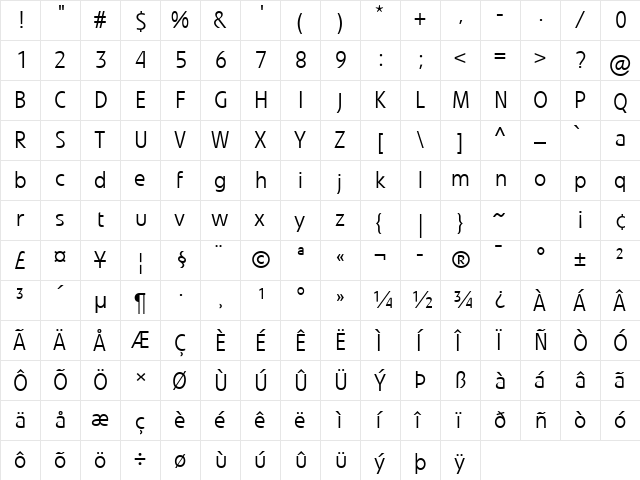
Veto Com Light
| Foundry | Linotype GmbH |
| Designer | Marco Ganz |
Design Context for Veto Com Typeface
Veto Com takes a measured approach to typography — its balanced proportions and neutral character make it a reliable workhorse for both digital and print work. Its slender proportions lend an understated elegance to any composition.